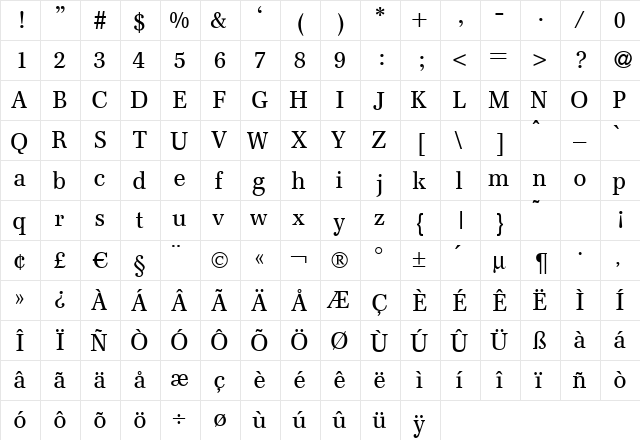
F820-Roman Regular
Design Context for F820-Roman Typeface
F820-Roman takes a measured approach to typography — its balanced proportions and neutral character make it a reliable workhorse for both digital and print work.